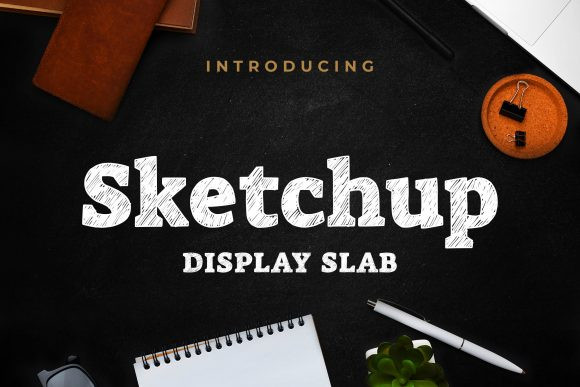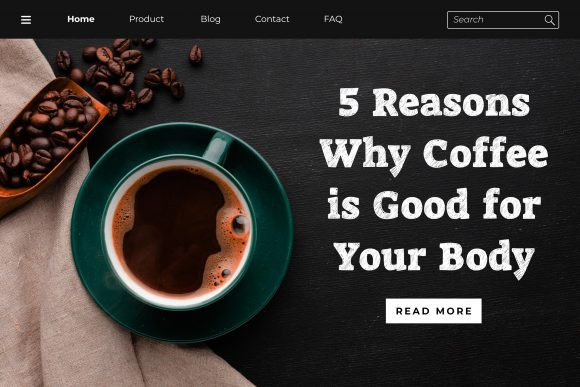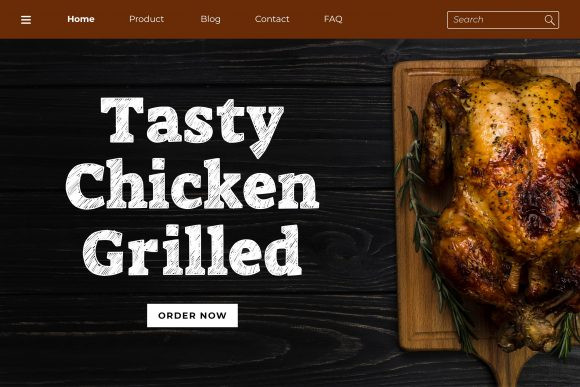
Sketchup Font
Sketchup is a playful and cool display font. This font reads as strong, confident, and dynamic and can add tons of nostalgic character to your designs.